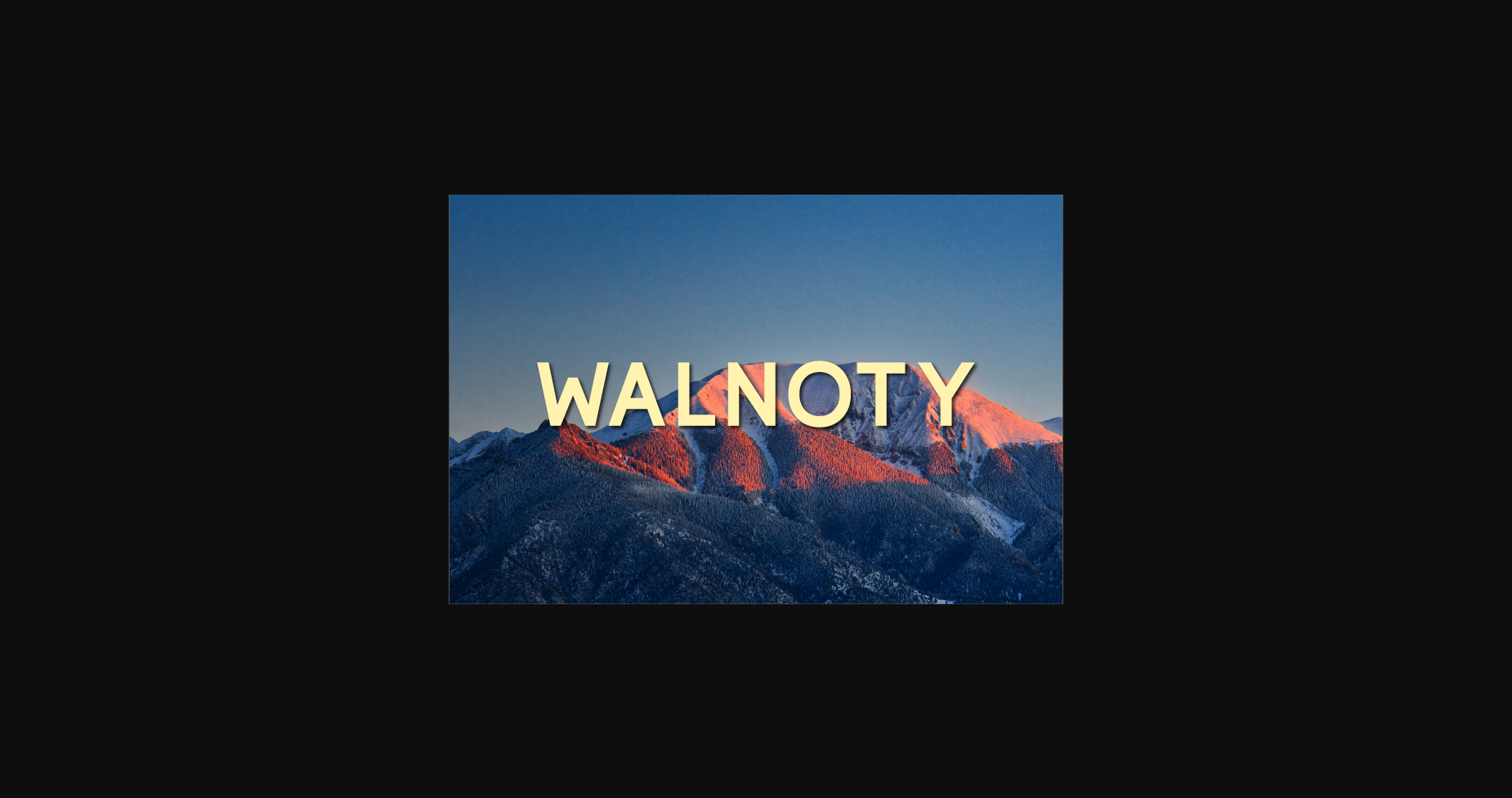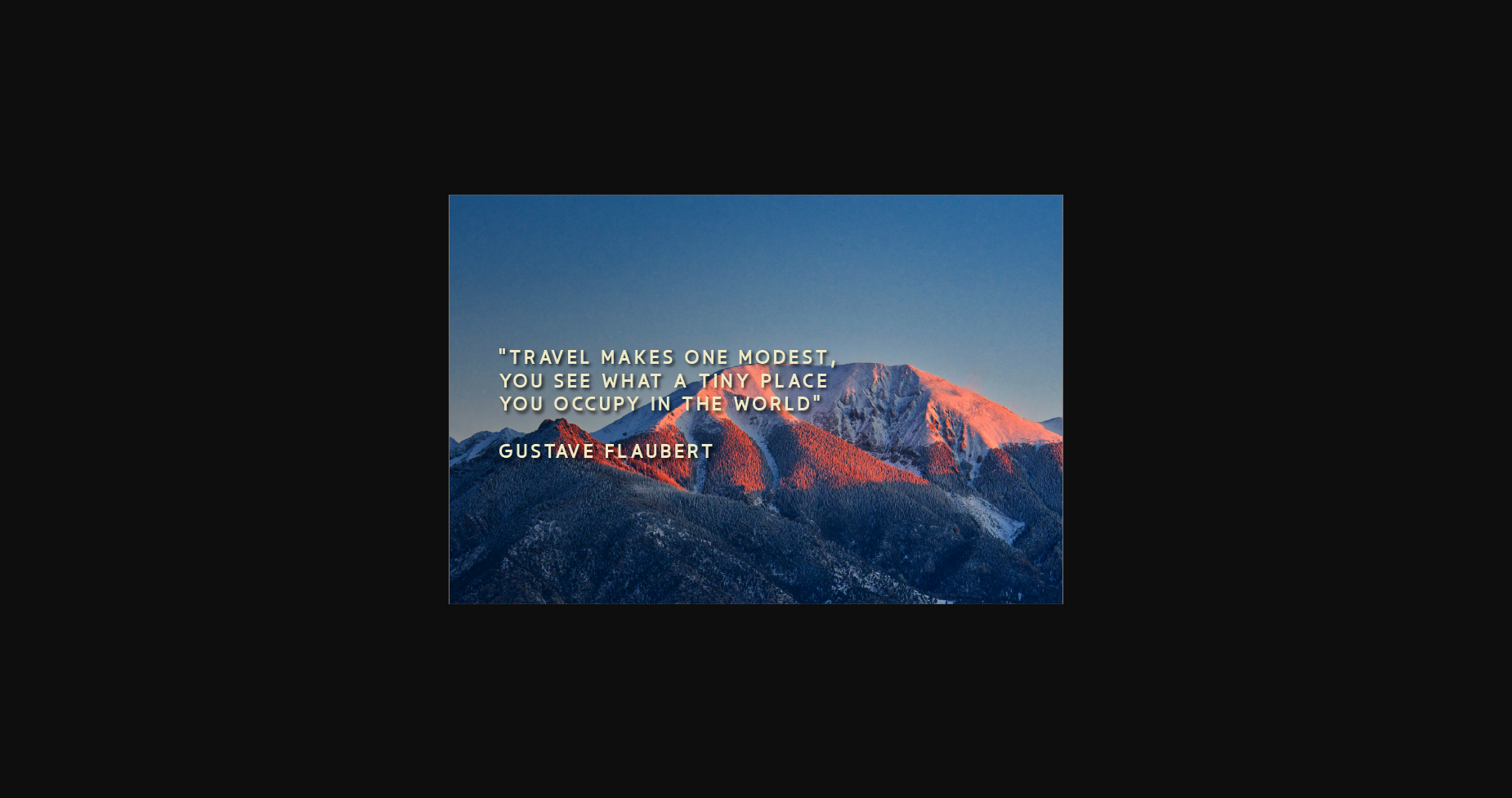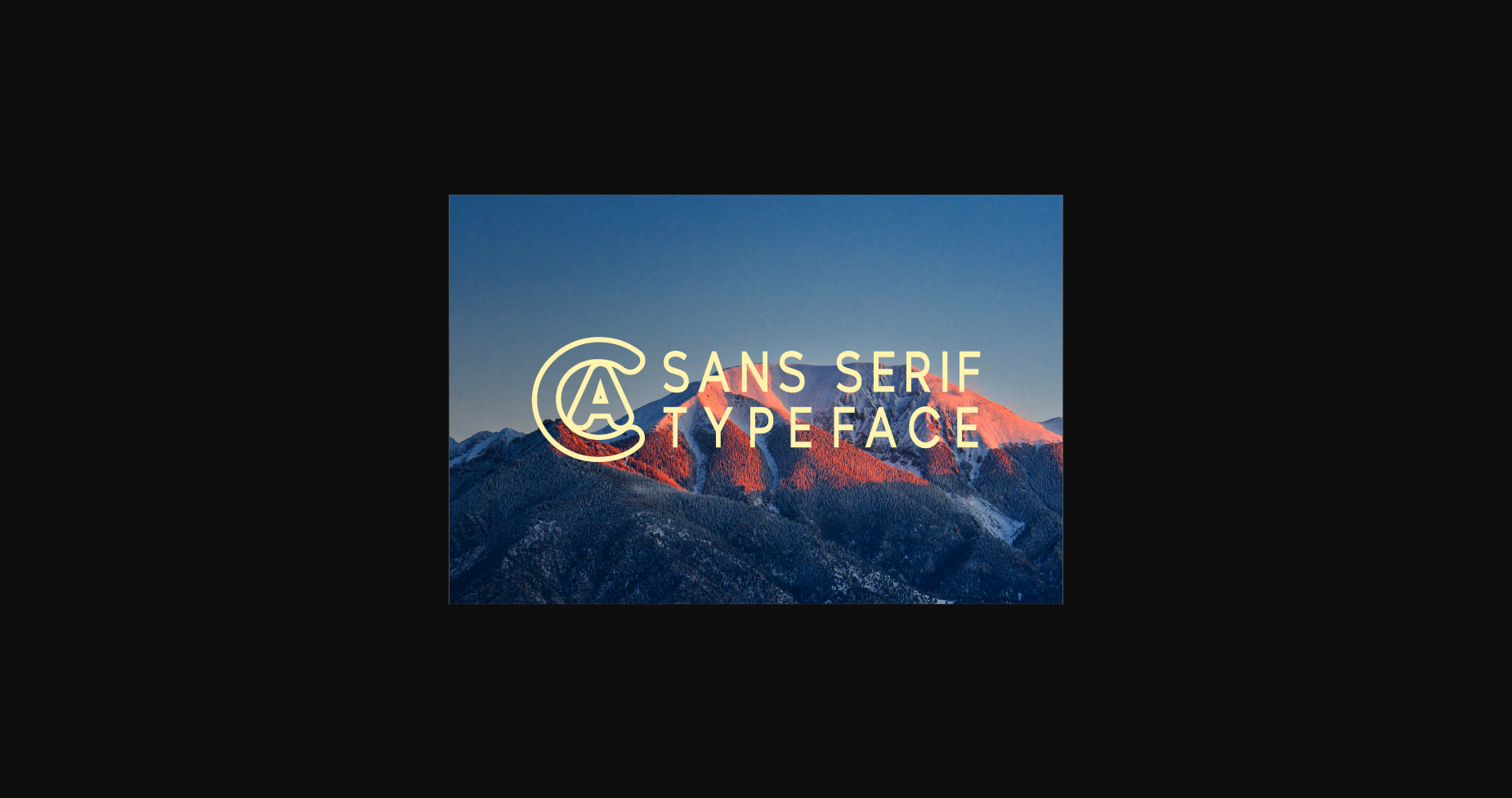
About Walnoty Font
Walnoty is a minimal and neat sans serif font. It can easily be matched to an incredibly large set of projects, so add it to your creative ideas and notice how it makes them stand out!